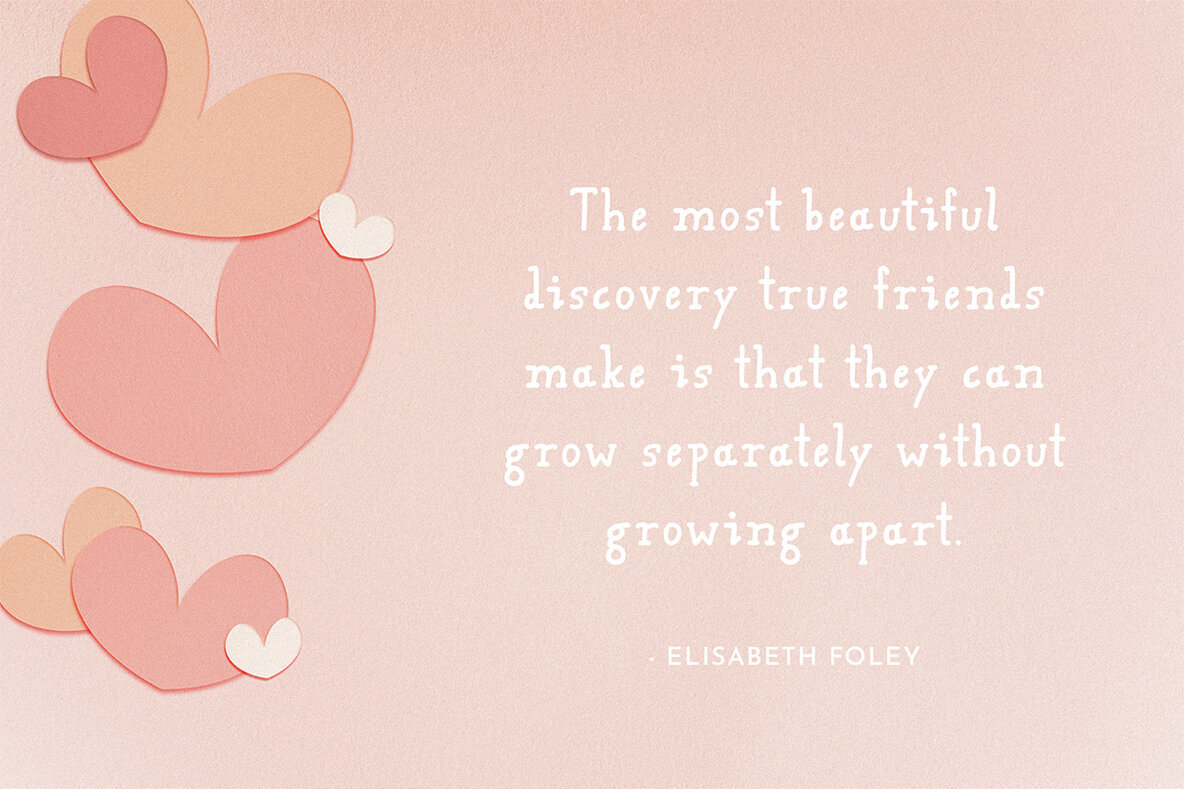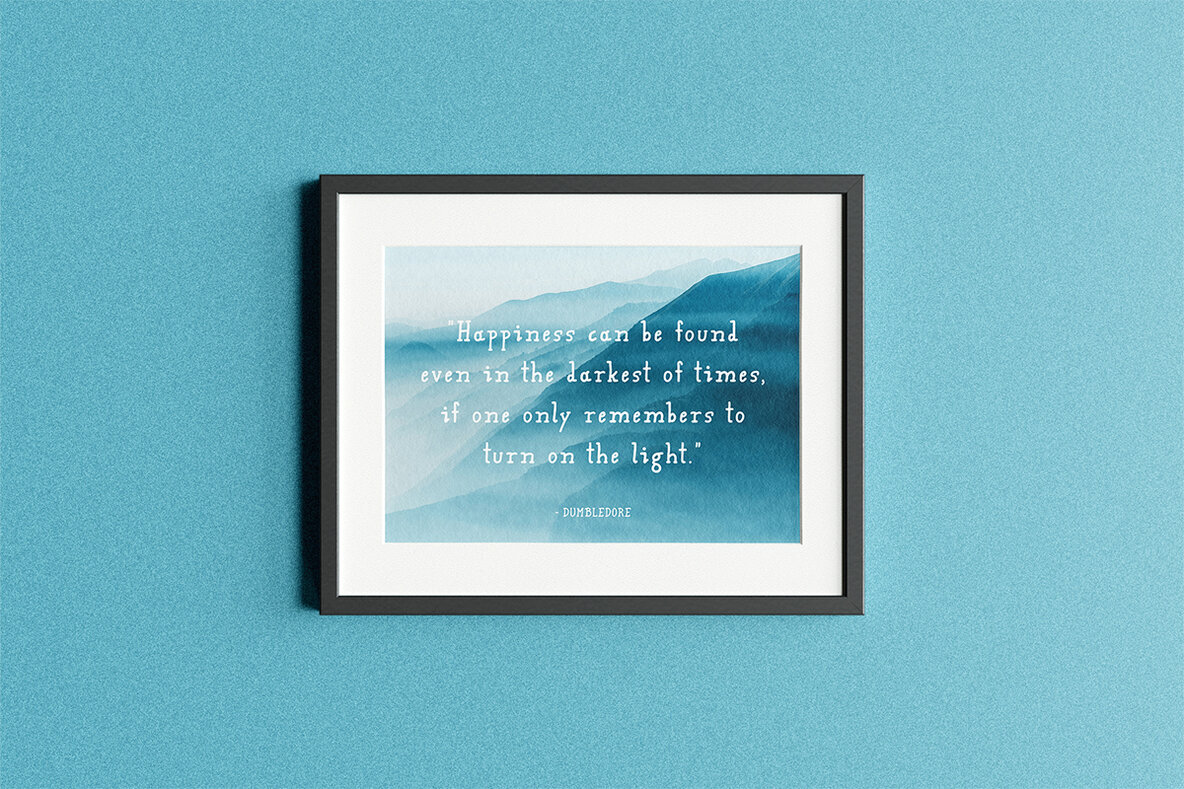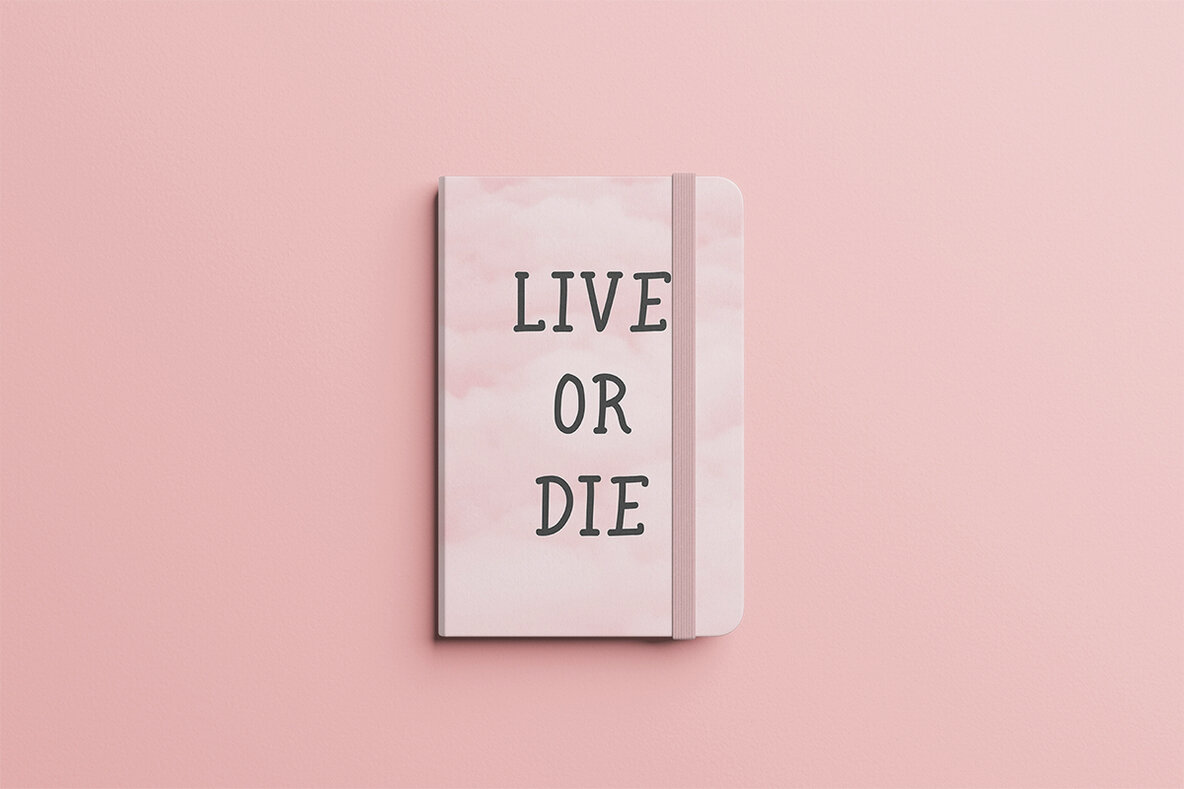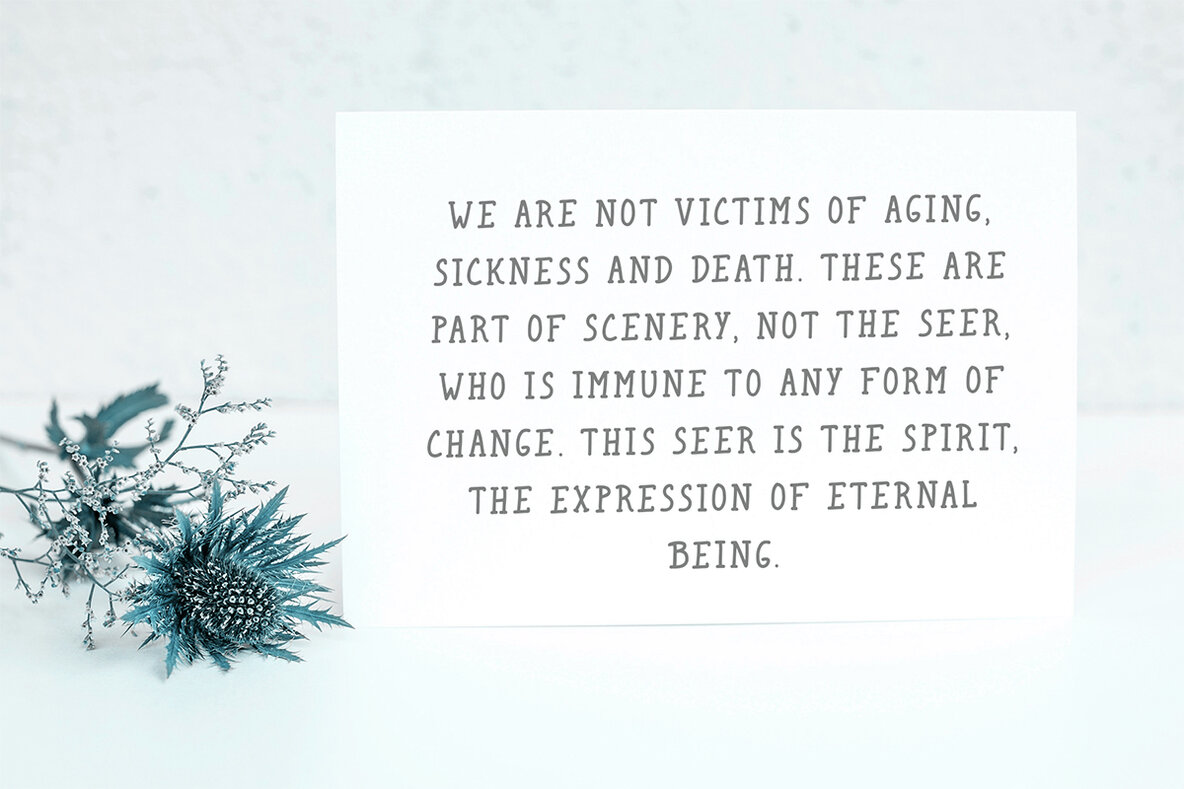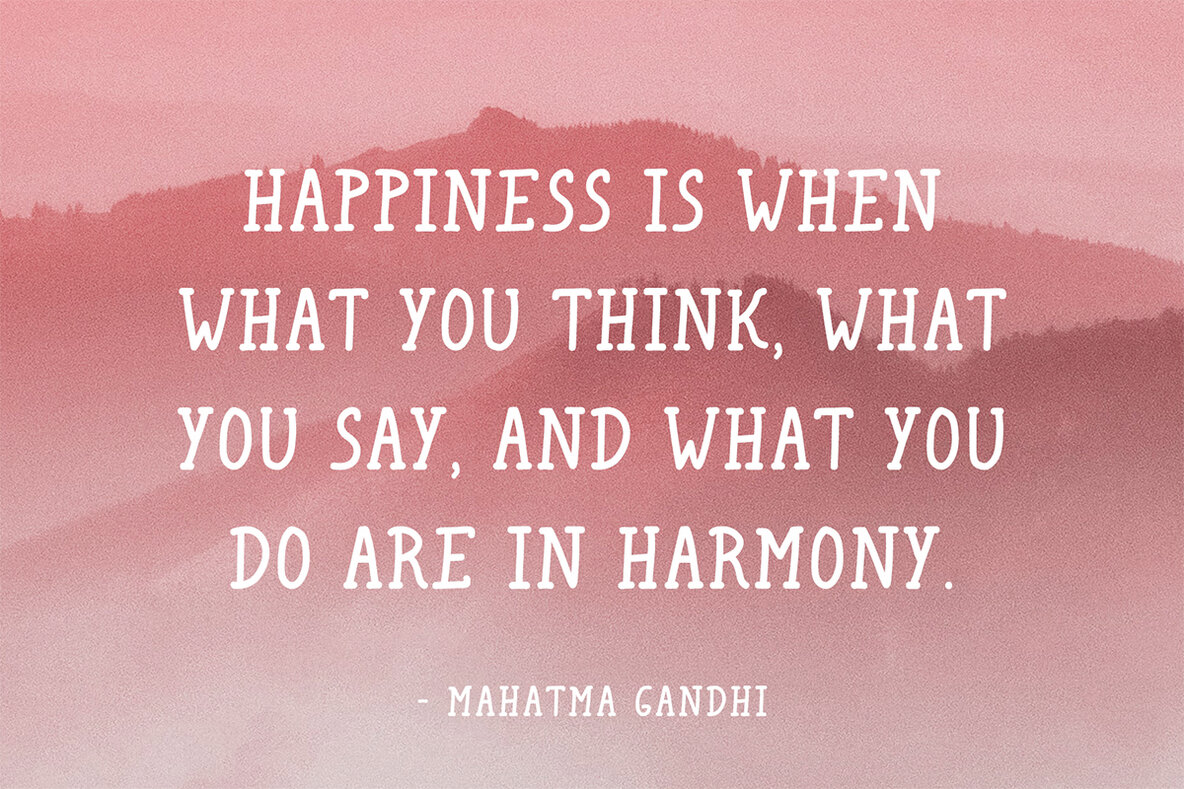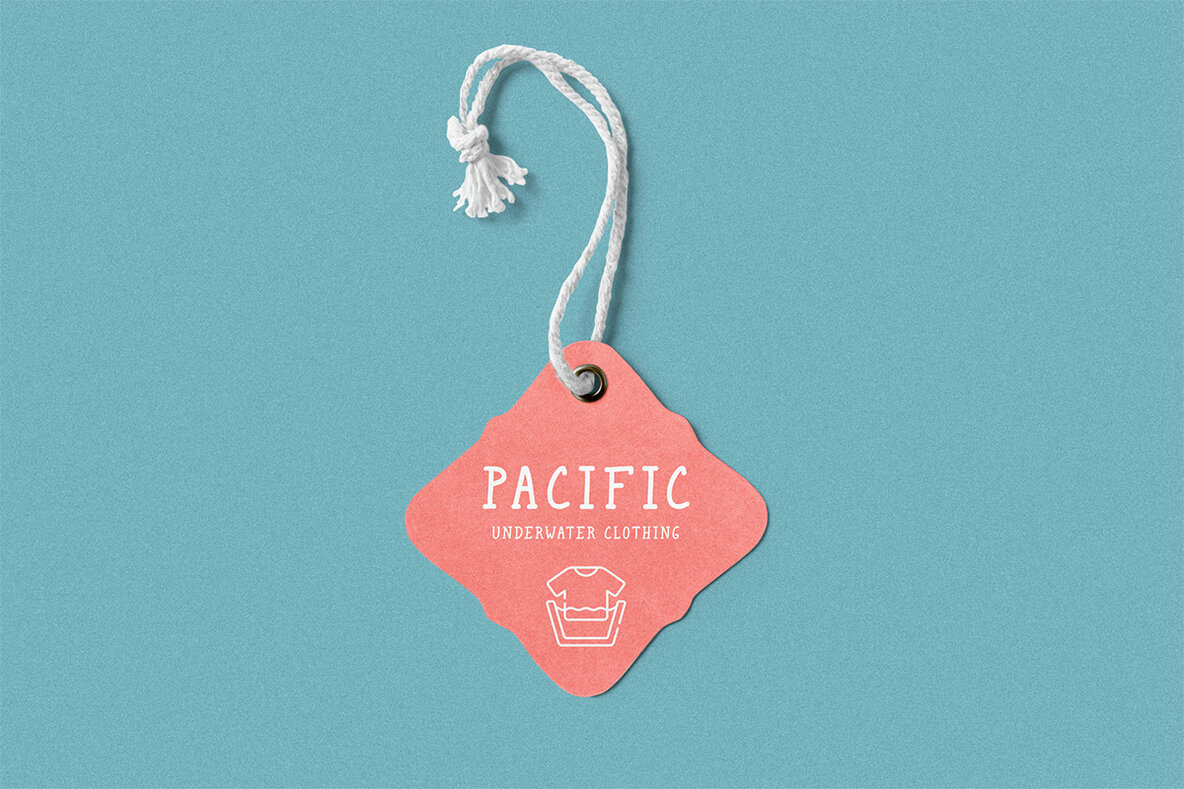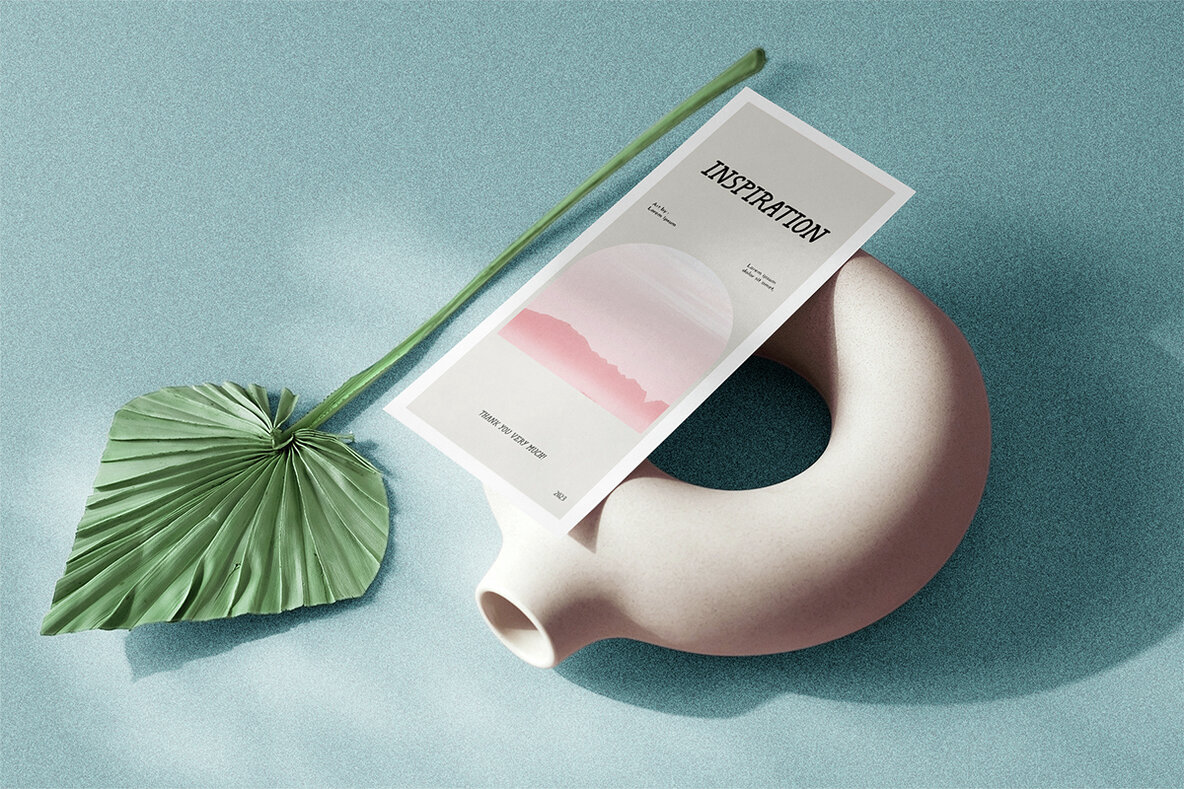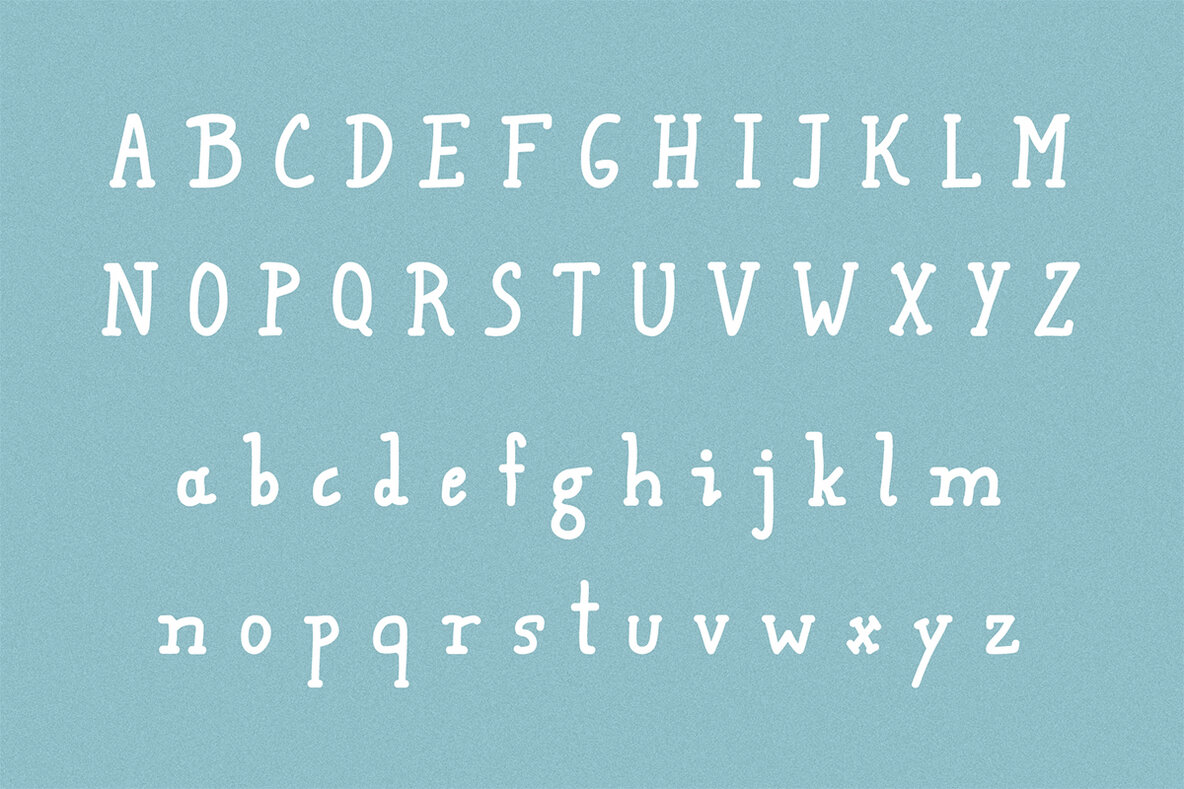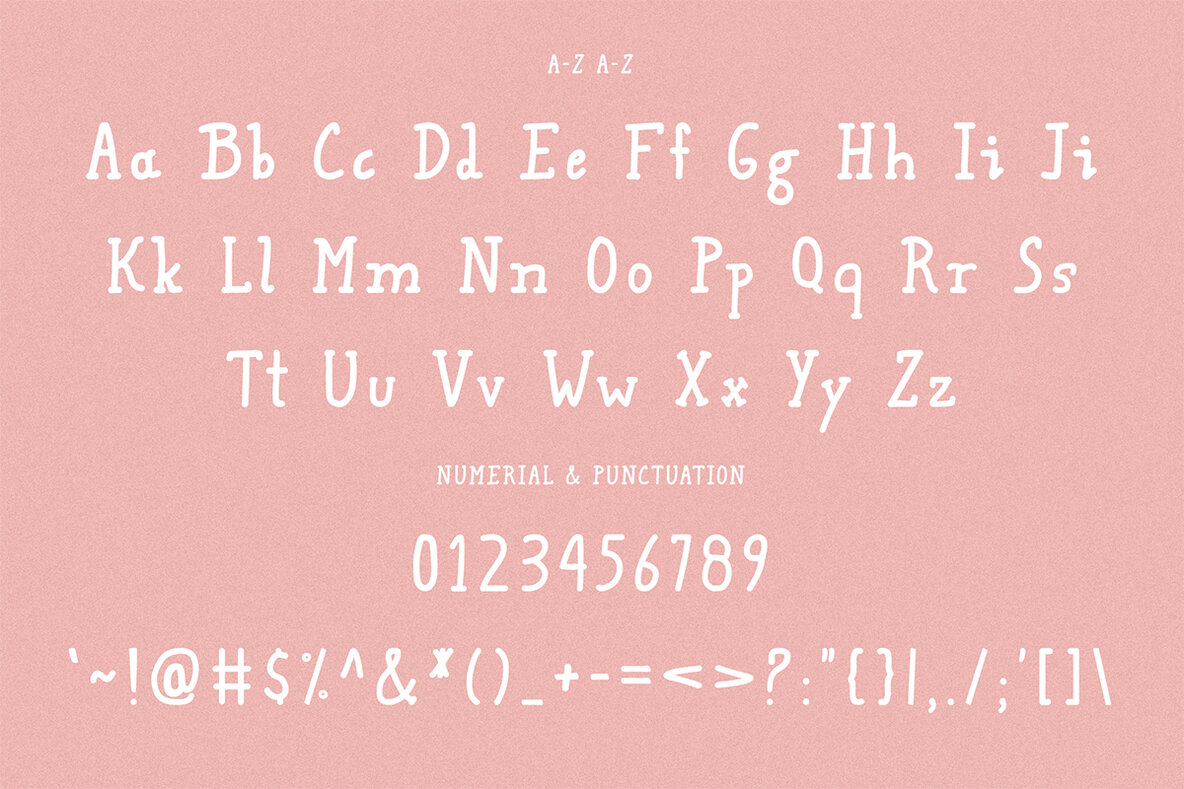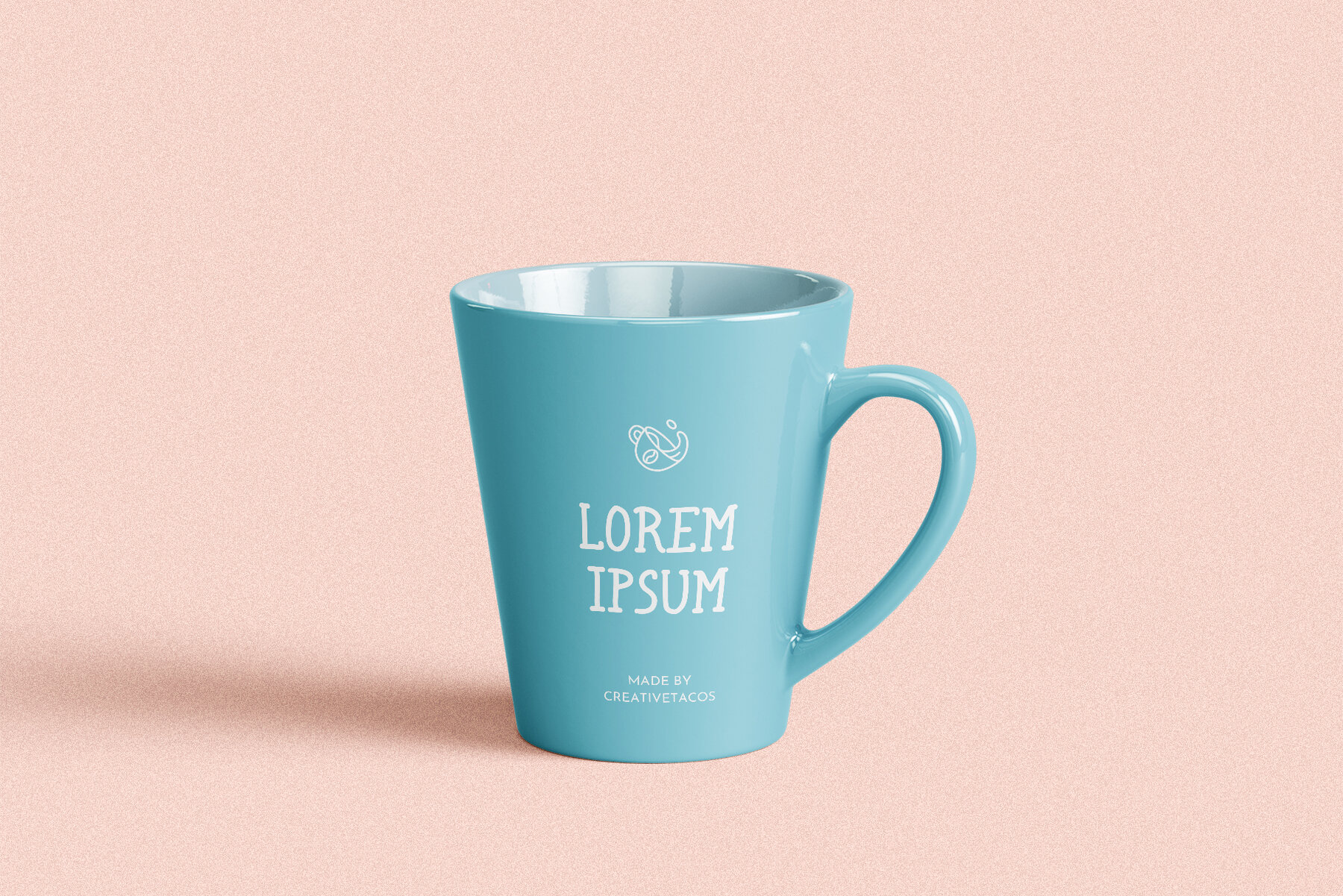
Yildiz Font
Yildiz Regular
Yildiz Slab Serif Font is a delightful and charming handwritten slab serif typeface, perfect for adding a touch of sweetness to your creative projects. Designed to be playful and engaging, it is ideal for packaging, logos, headlines, posters, branding, and much more. This versatile font brings a unique flair to note-making, magazine headings, web layouts, advertising, invitations, kids’ projects, and book titles.
This font includes a full set of uppercase and lowercase letters, numbers, and a wide range of punctuation and symbols. It's specifically structured to bring a handwritten feel to your work, adding personality and warmth. Its supported characters include the full English alphabet, digits, and an array of punctuation marks, ensuring you have everything you need for a comprehensive and polished design. Perfect for any creative endeavor, Yildiz Slab Serif Font is sure to enhance your next project.